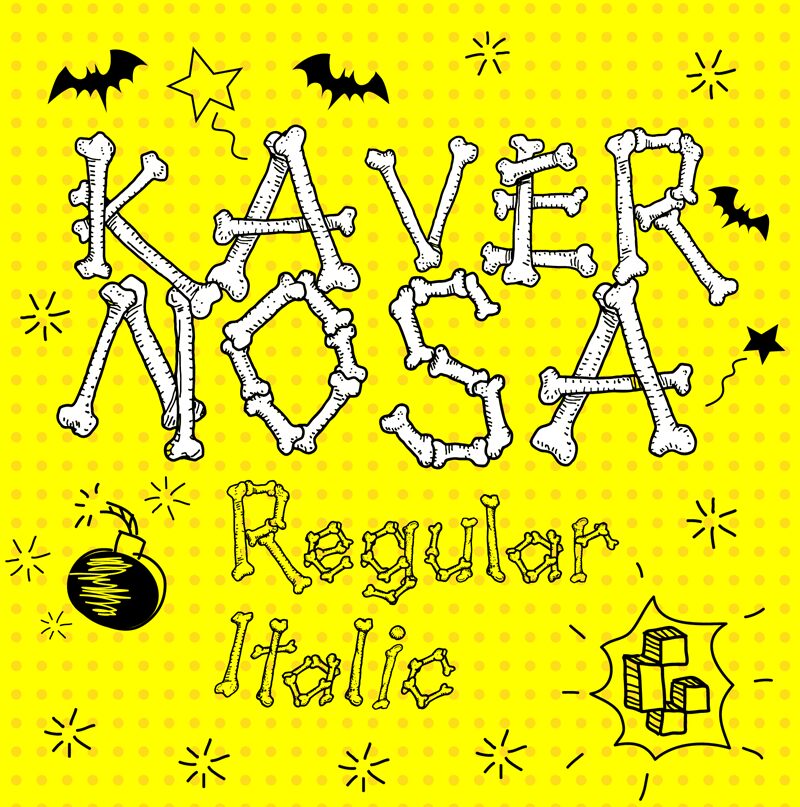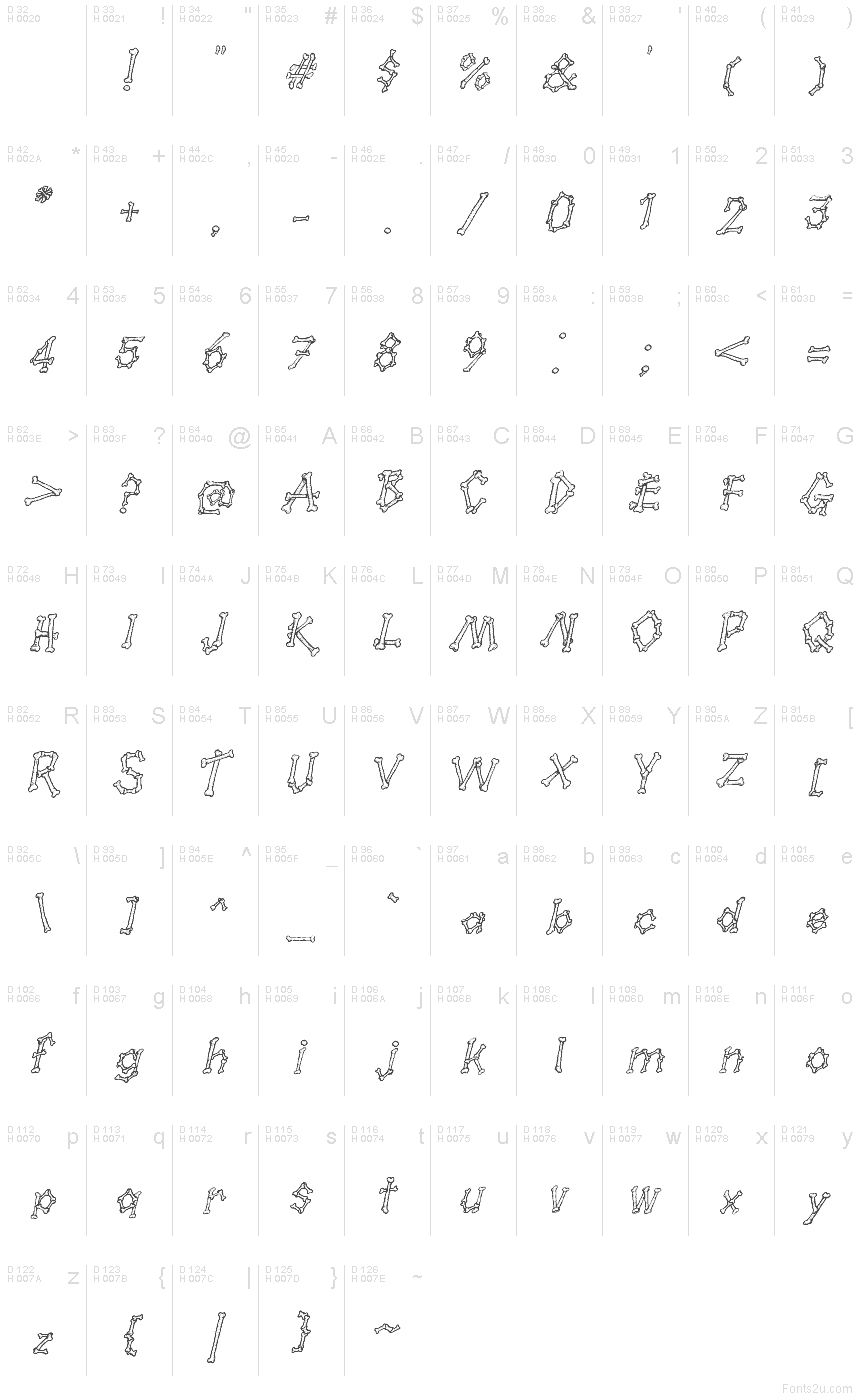
Kavernosa Italic
Kavernosa Italic font by Galdino Otten Fonts is a decorative display font built industrial-style like machine stacked. Its structure made with precise geometrical details of rhythmic combinations that denote both instruction and aesthetics at once. With precision cut, curved, straight, ballpoint-inspired, you name it—but all construction lines are within natural expanded limits.
Kavernosa Italic can be used for writing texts of machine operation guides, technical manuals (instruction or reference), construction themes (editing), and architecture websites for its simplest means. Exploit the fonts geometric beauty in producing well-explained images which include in addition blueprints, journal title pages, engineering posters, or required balance infographics.